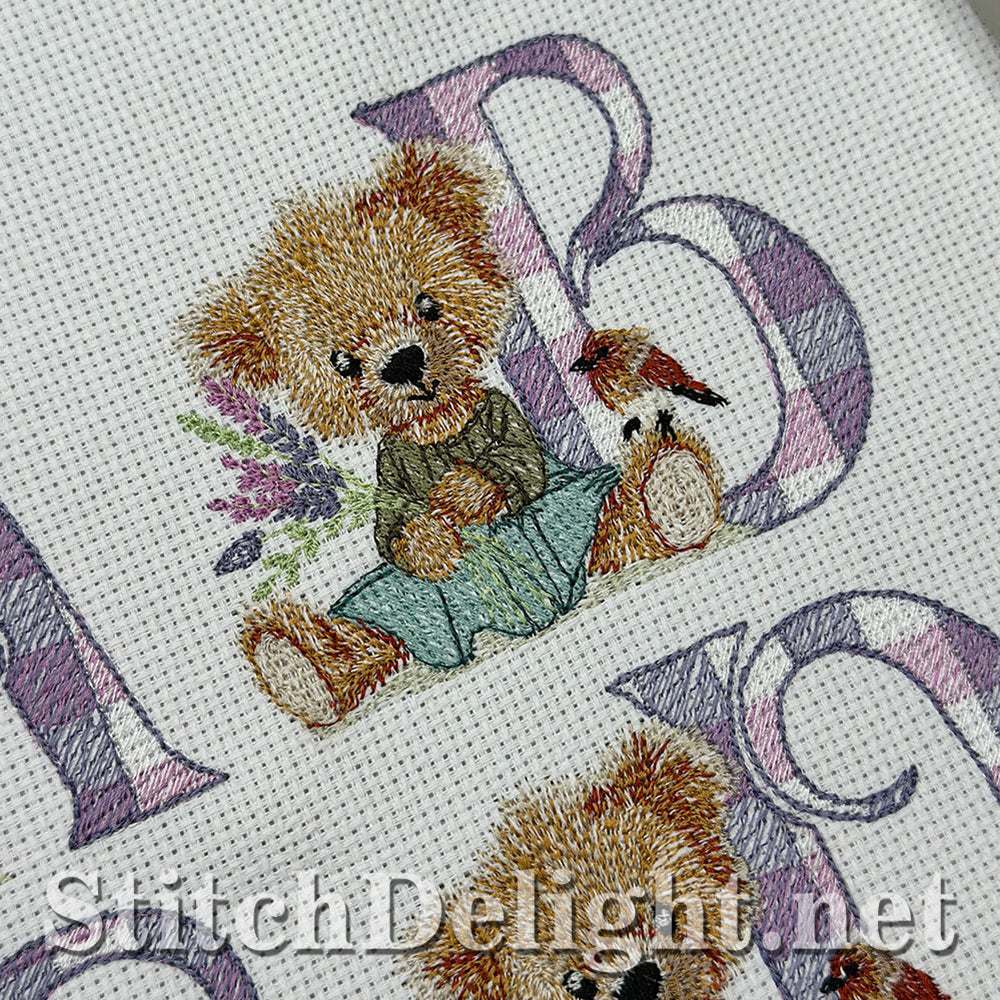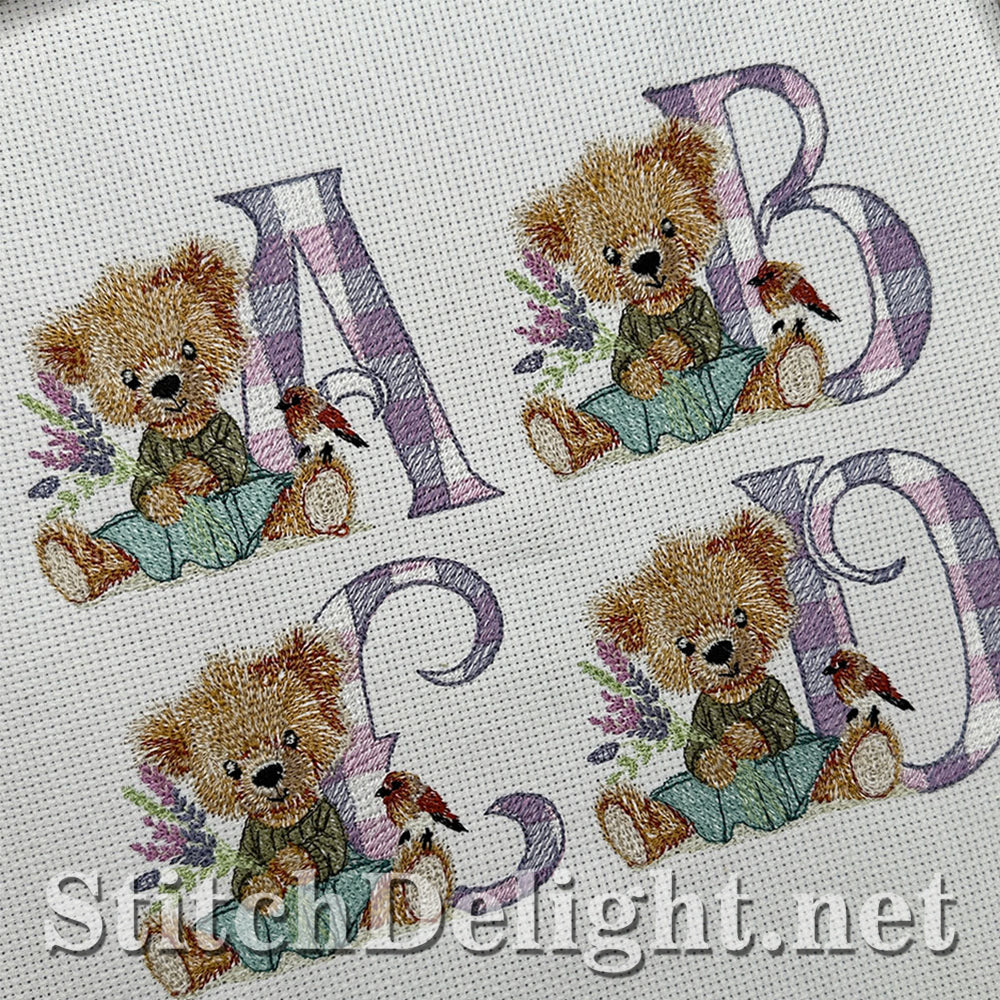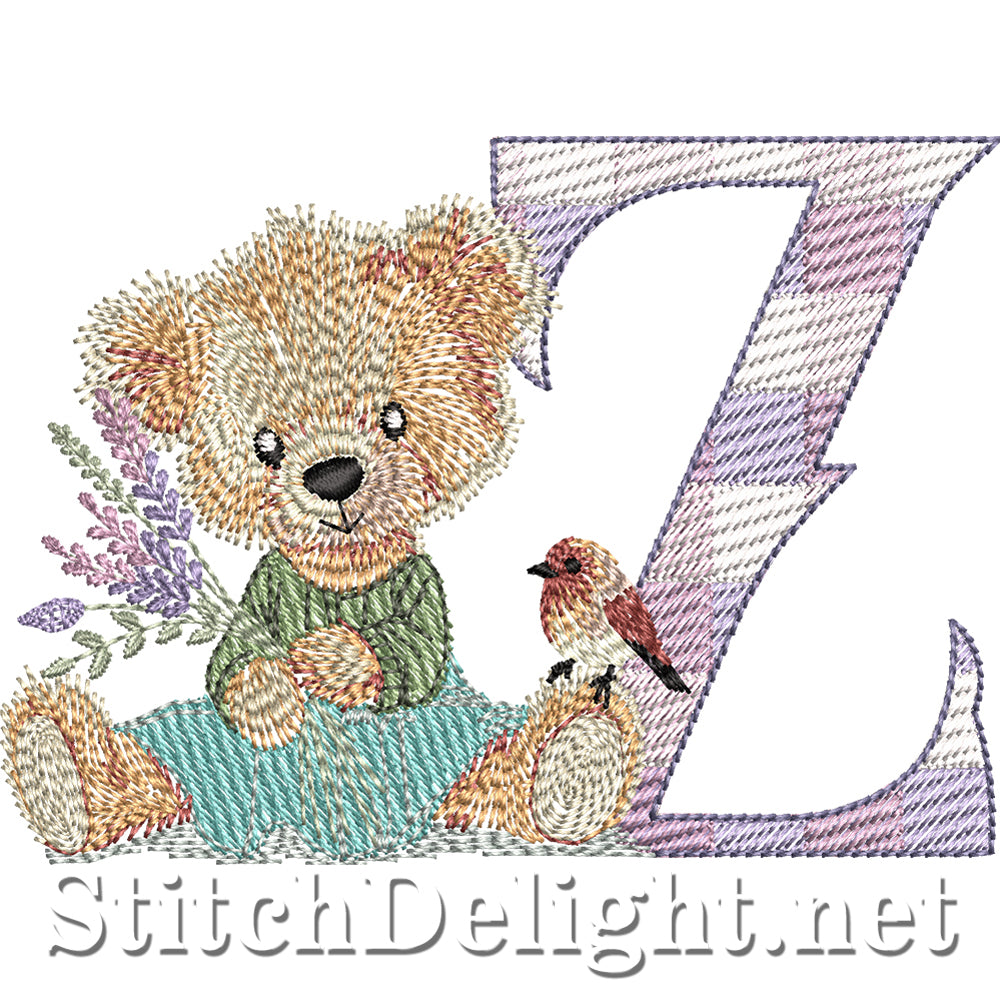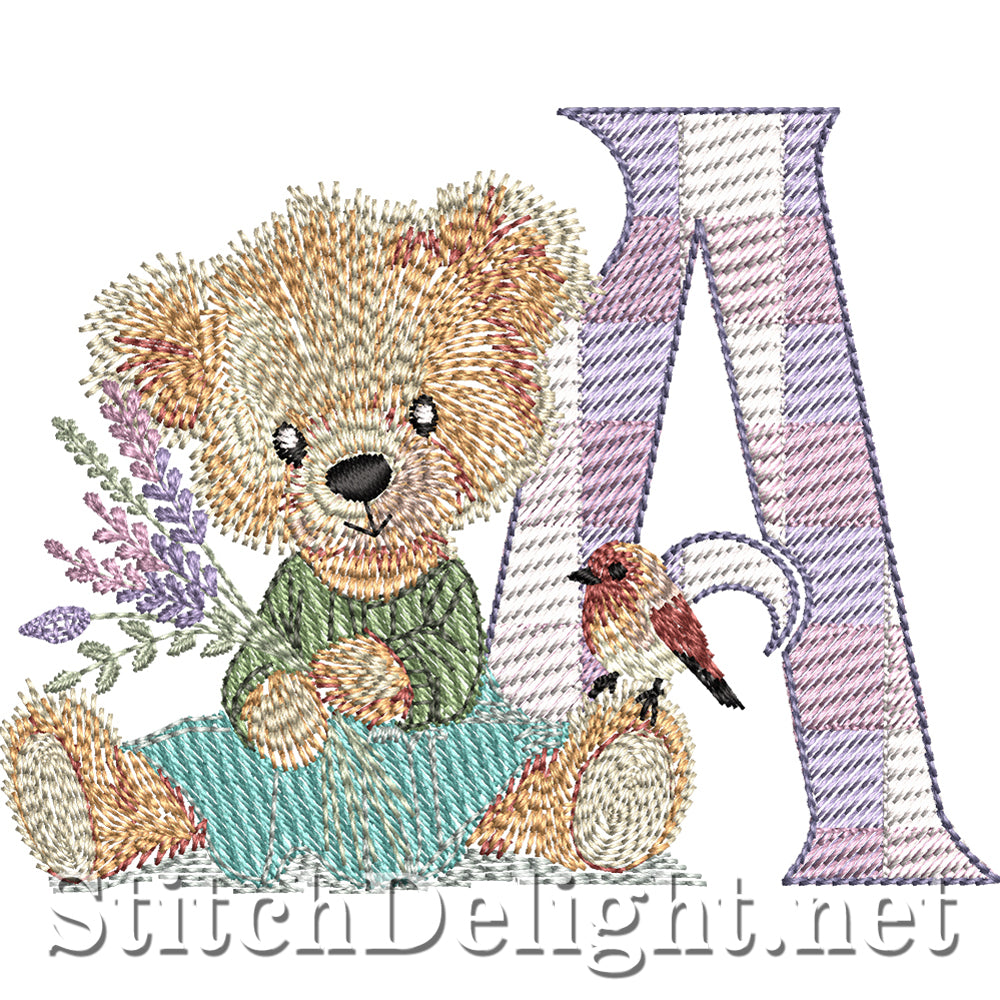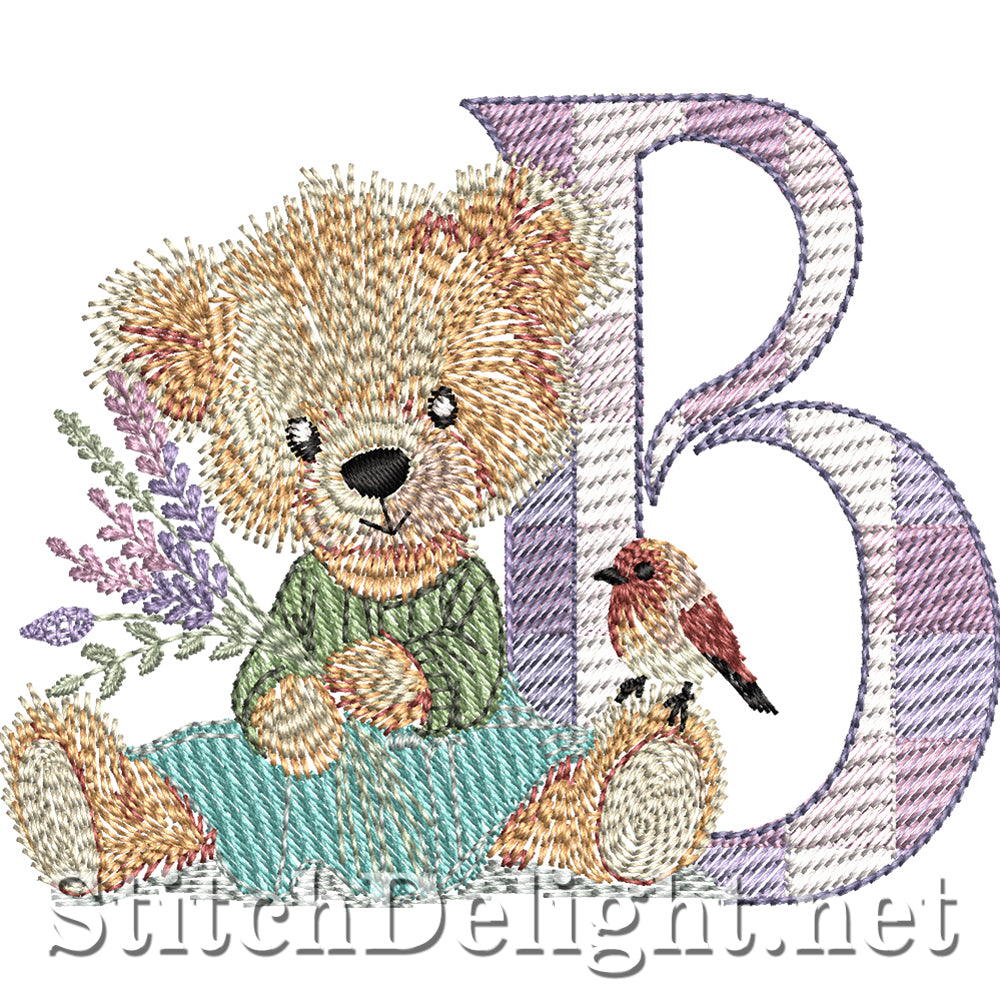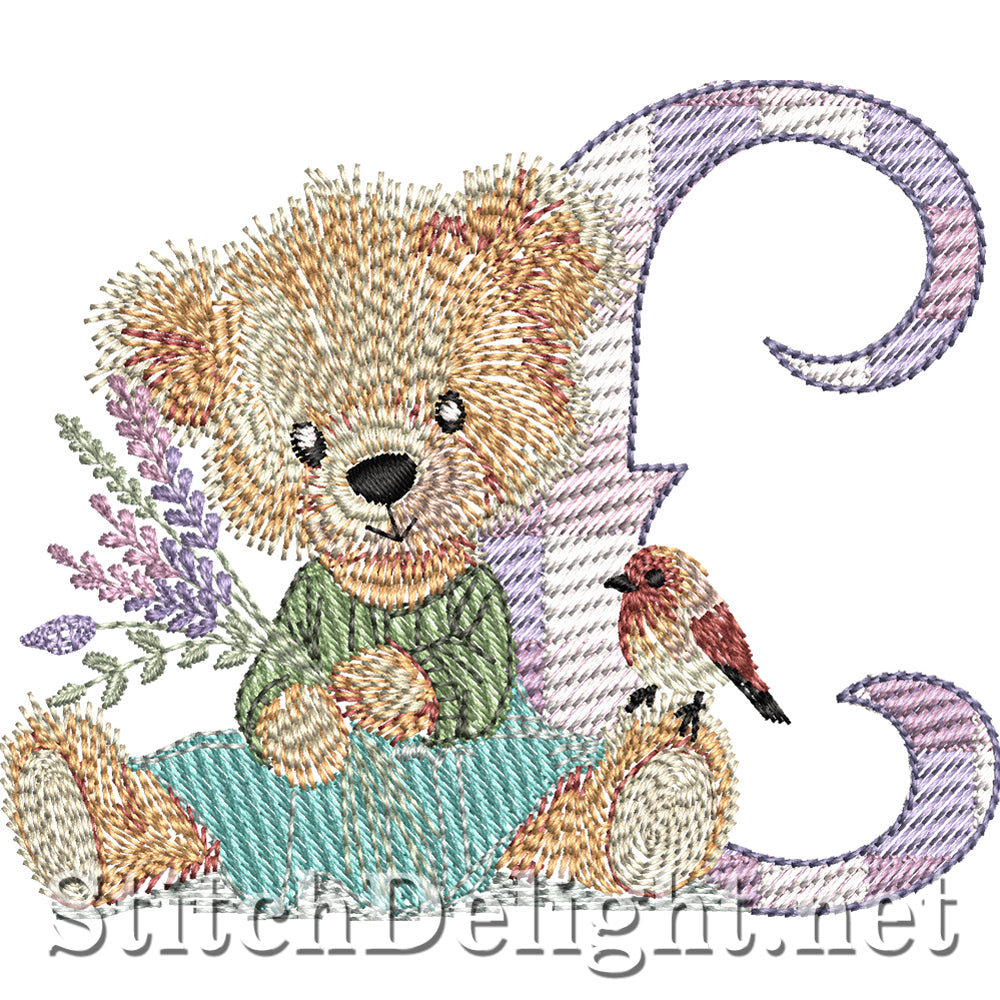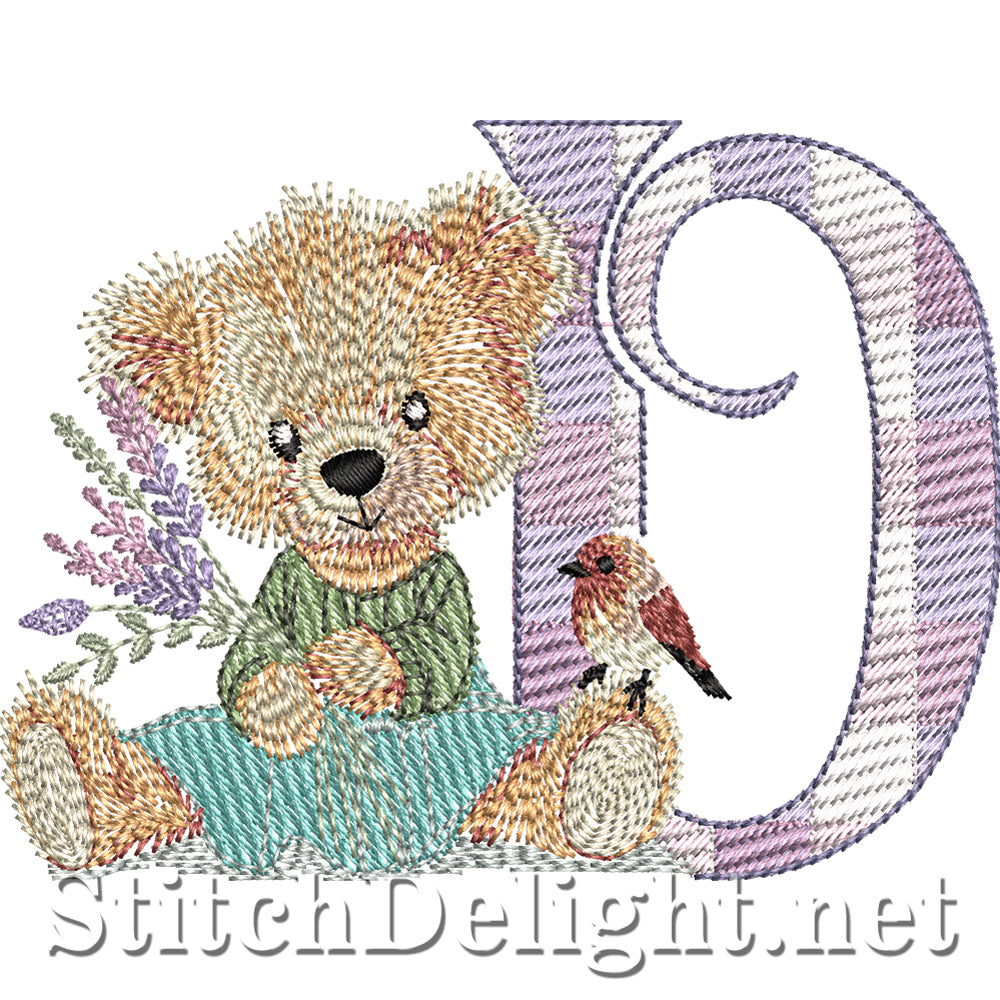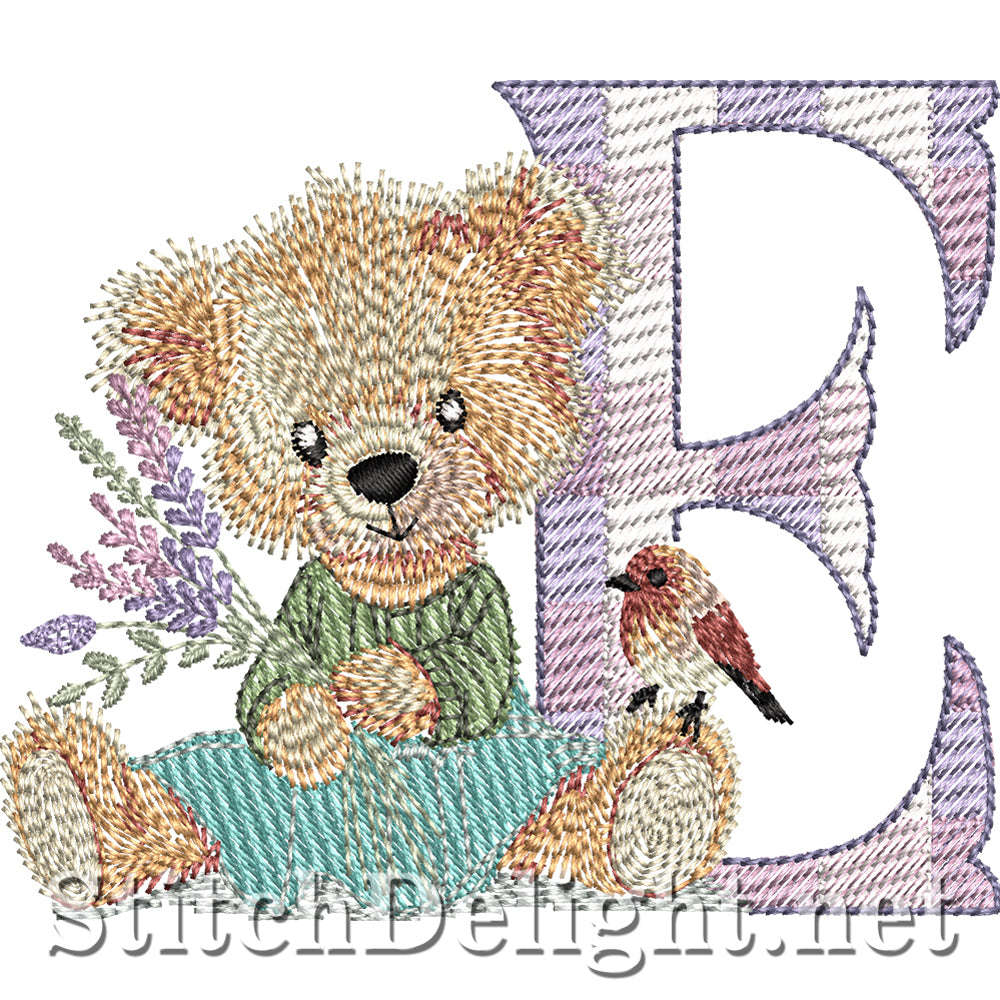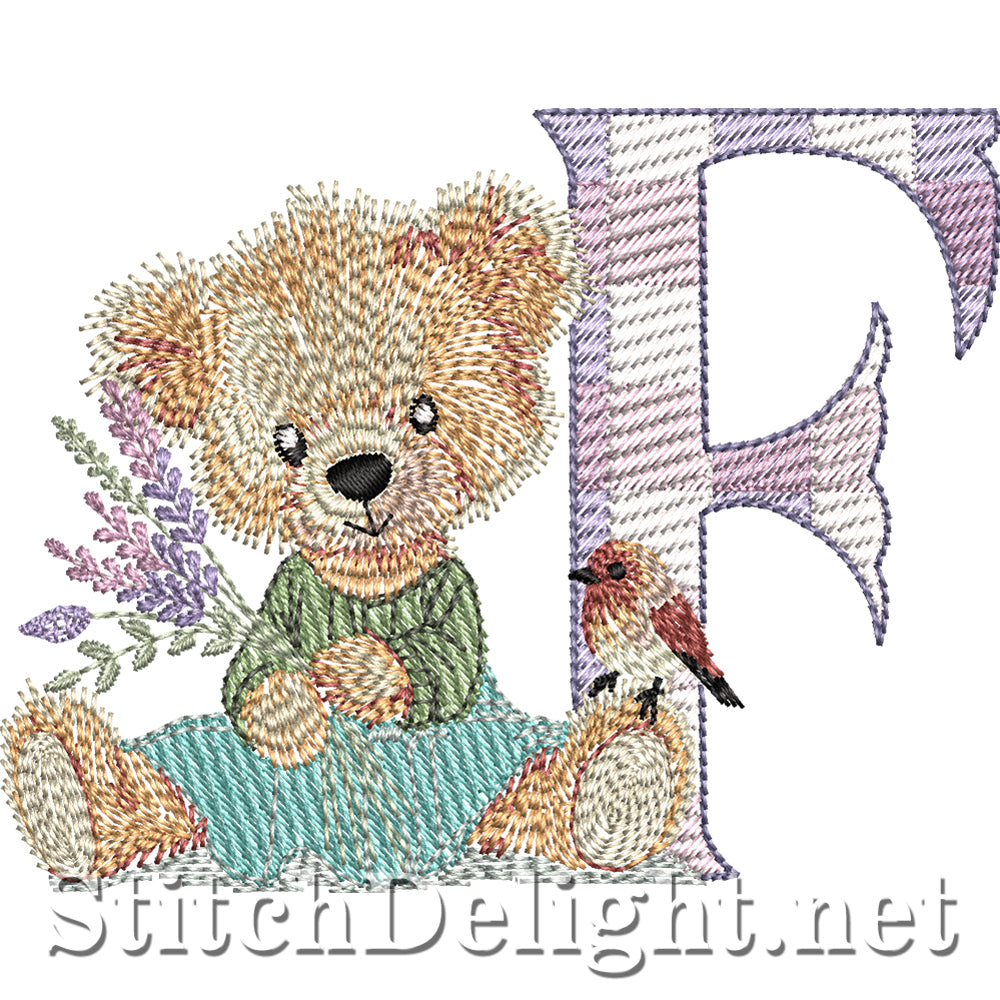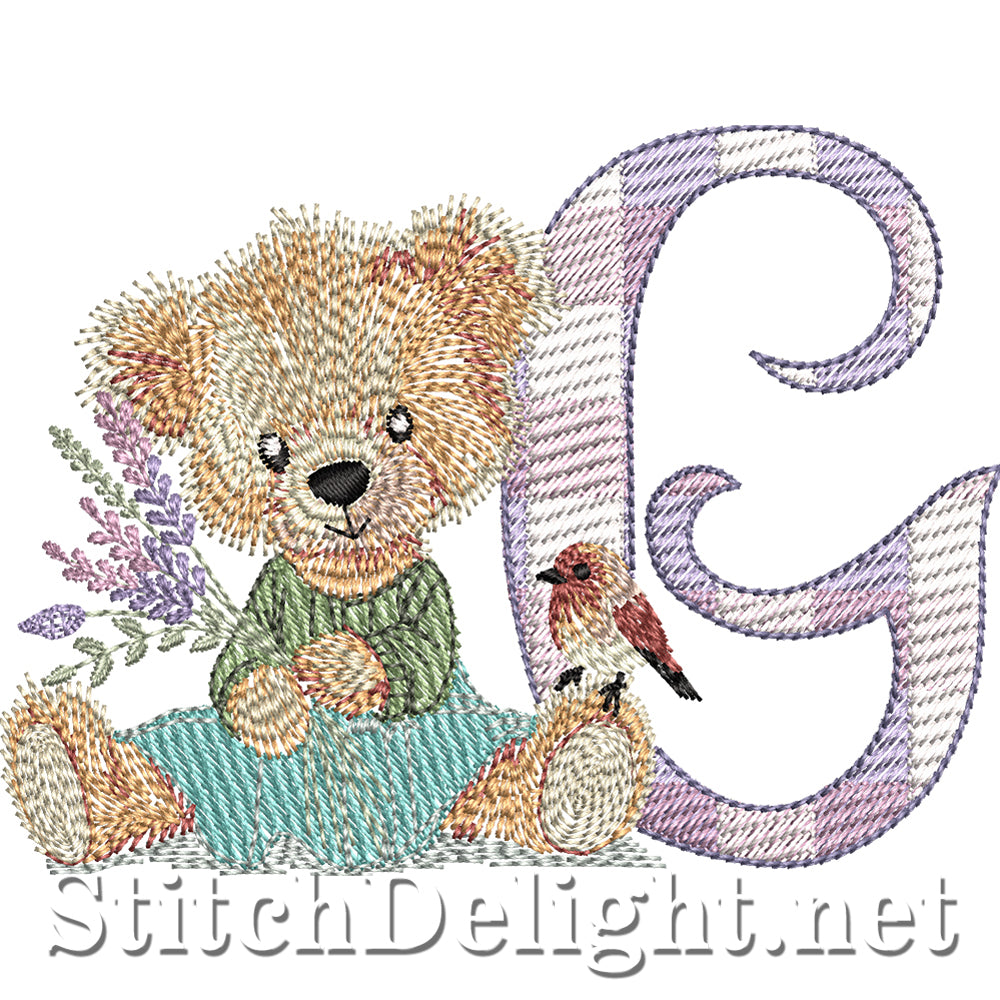
Posie Teddy Font
Introducing the Posie Teddy Font – a font that’s as cuddly as it is creative! Each letter comes to life with Posie, a sweet little teddy who loves to play among the alphabet. Like the flower she’s named after, Posie adds charm and warmth to every stitch, making your embroidery projects bloom with personality.
Two Versions of Every Letter
- With Knockdown – perfect for towels, blankets, and other textured fabrics, where a soft underlay flattens the surface so your stitches stay neat and visible.
- Without Knockdown – ideal for smooth fabrics where you don’t need the extra layer.
From personalizing children’s gifts to brightening up nursery décor, Posie is ready to bring her teddy bear magic to your projects. Whether you’re embroidering names, monograms, or playful messages, this font is more than just lettering — it’s a huggable little companion stitched right into your work.